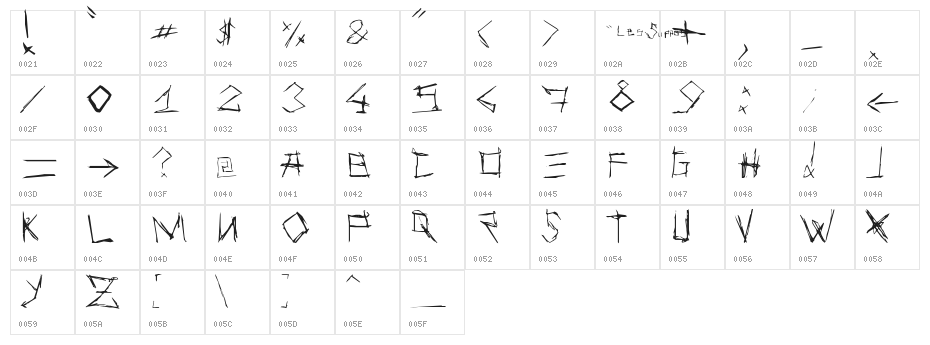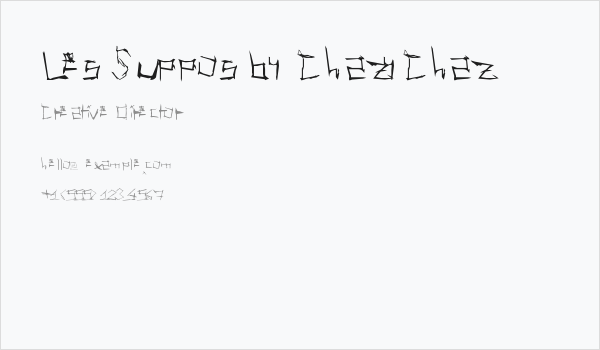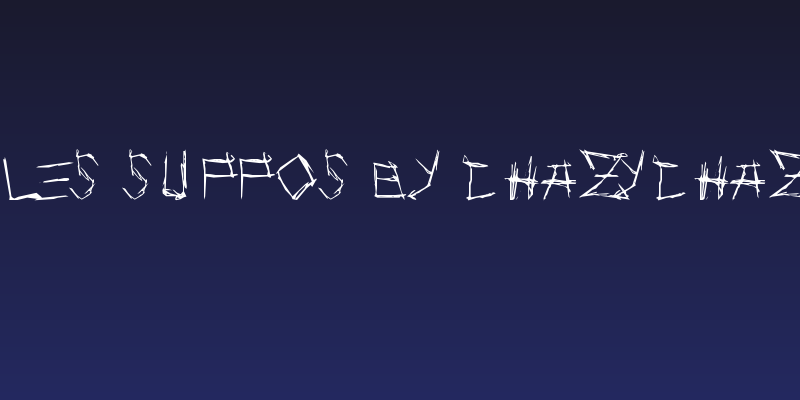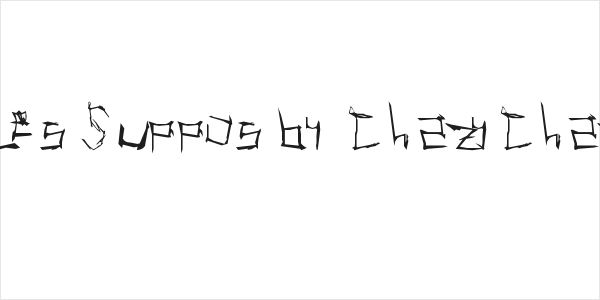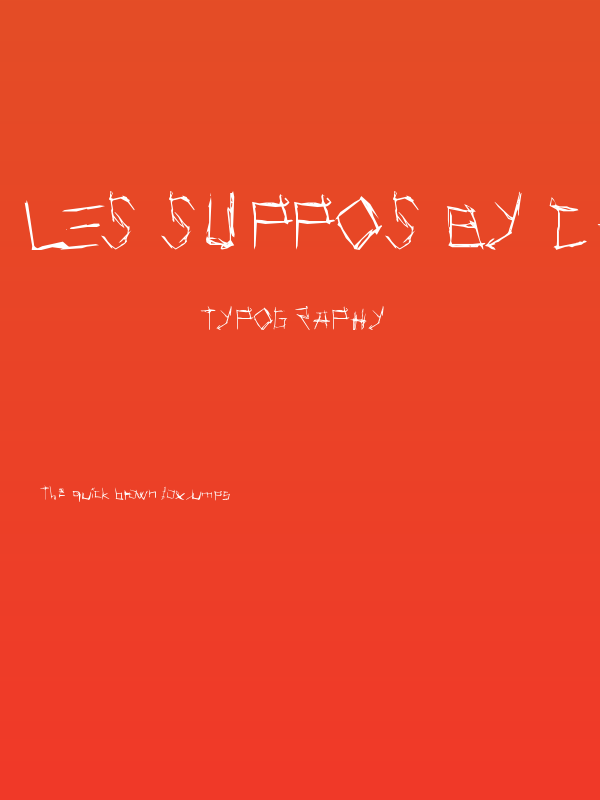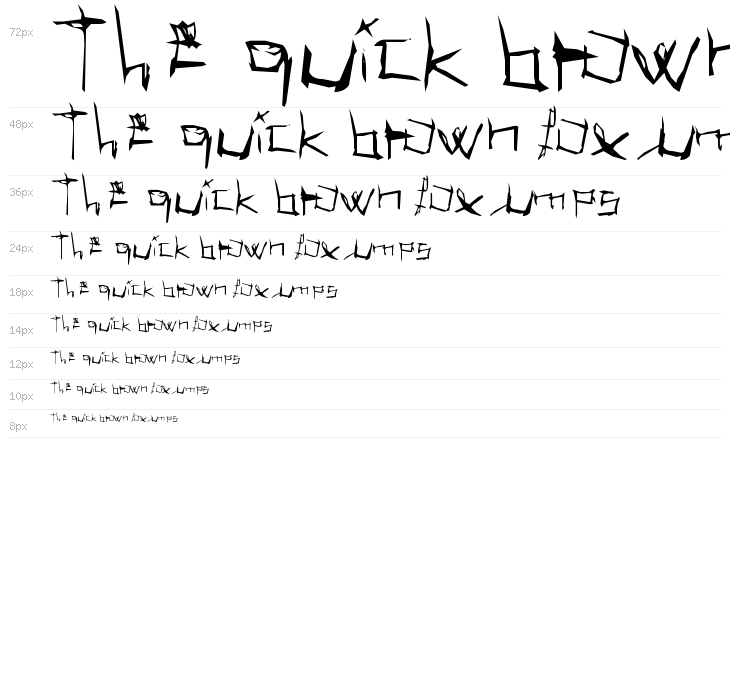
Les Suppos by ChazyChaz Font
Les Suppos by ChazyChaz Description
This font features a highly distinctive and edgy style, characterized by sharp, angular lines and a chaotic, graffiti-like appearance. Each letter is crafted with an irregular, jagged form that gives it a rebellious and energetic feel. The uppercase and lowercase letters maintain a consistent theme of unpredictability, with strokes that vary in thickness and direction. Numbers and special characters follow the same aesthetic, adding to the font's overall dynamic and unconventional look. The font's unique design makes it stand out, offering a bold statement for any project.
| Overall Style | Modern, Edgy |
| Use Case | Logos, Posters, Album Covers |
| Proposed Projects | Ideal for street art designs, music album covers, edgy branding, or any project seeking a rebellious and dynamic visual impact. |